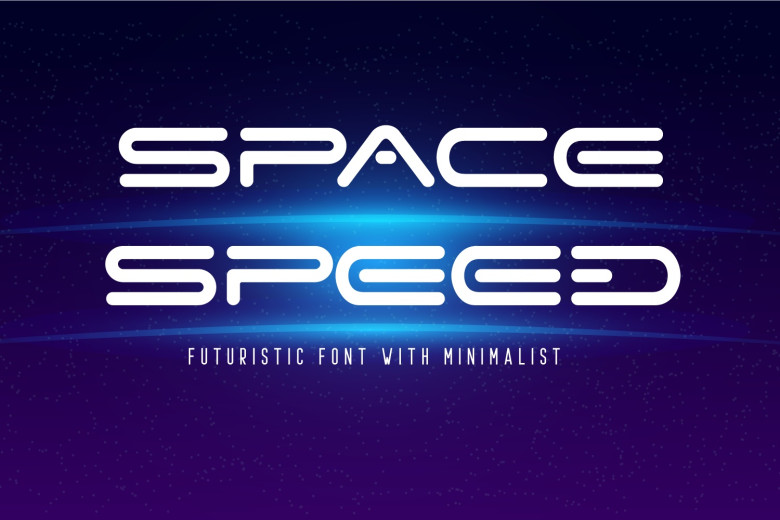
Space Speed Font
Space Speed is a cool, bold and futuristic display font. Regardless of what your theme is, this font will be an immensely pleasing addition to your library of fonts–many works, with its power to elevate any creation, will be kicked up a notch.
Space Speed Display Font